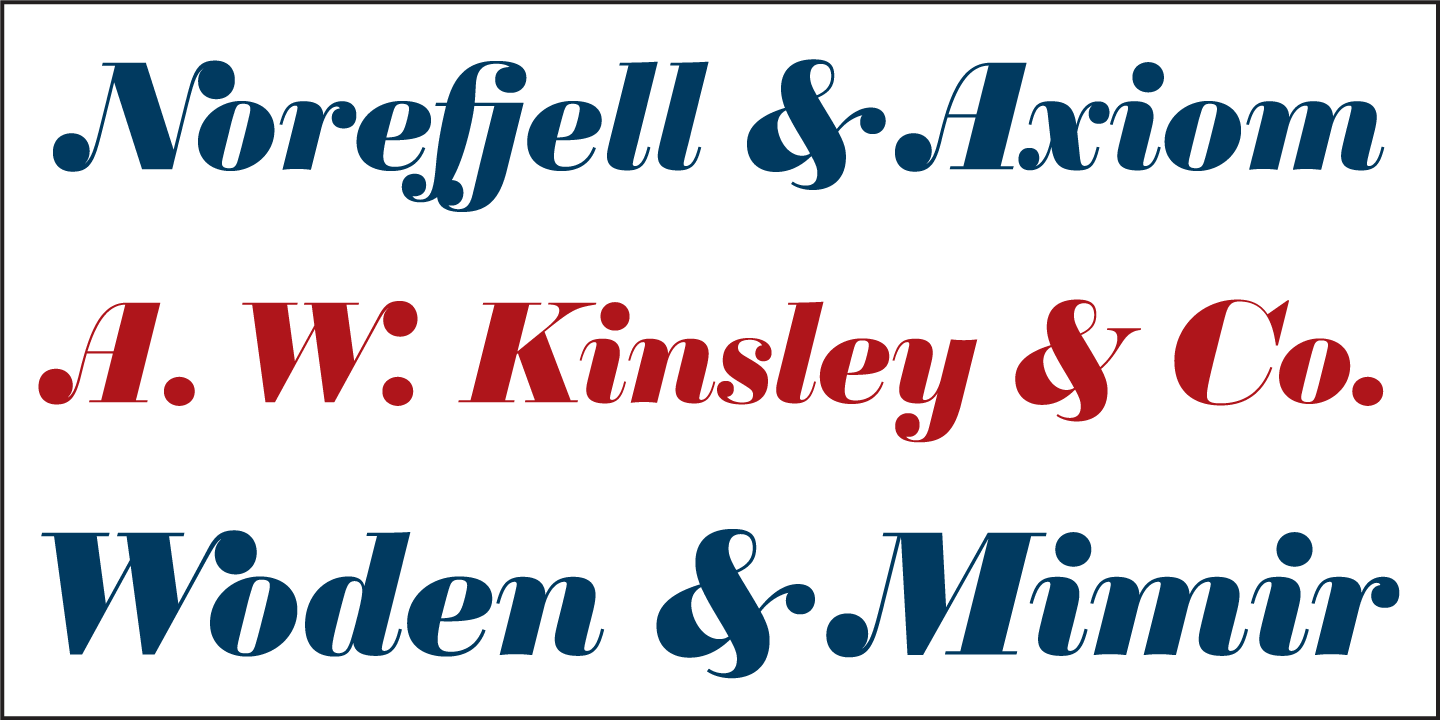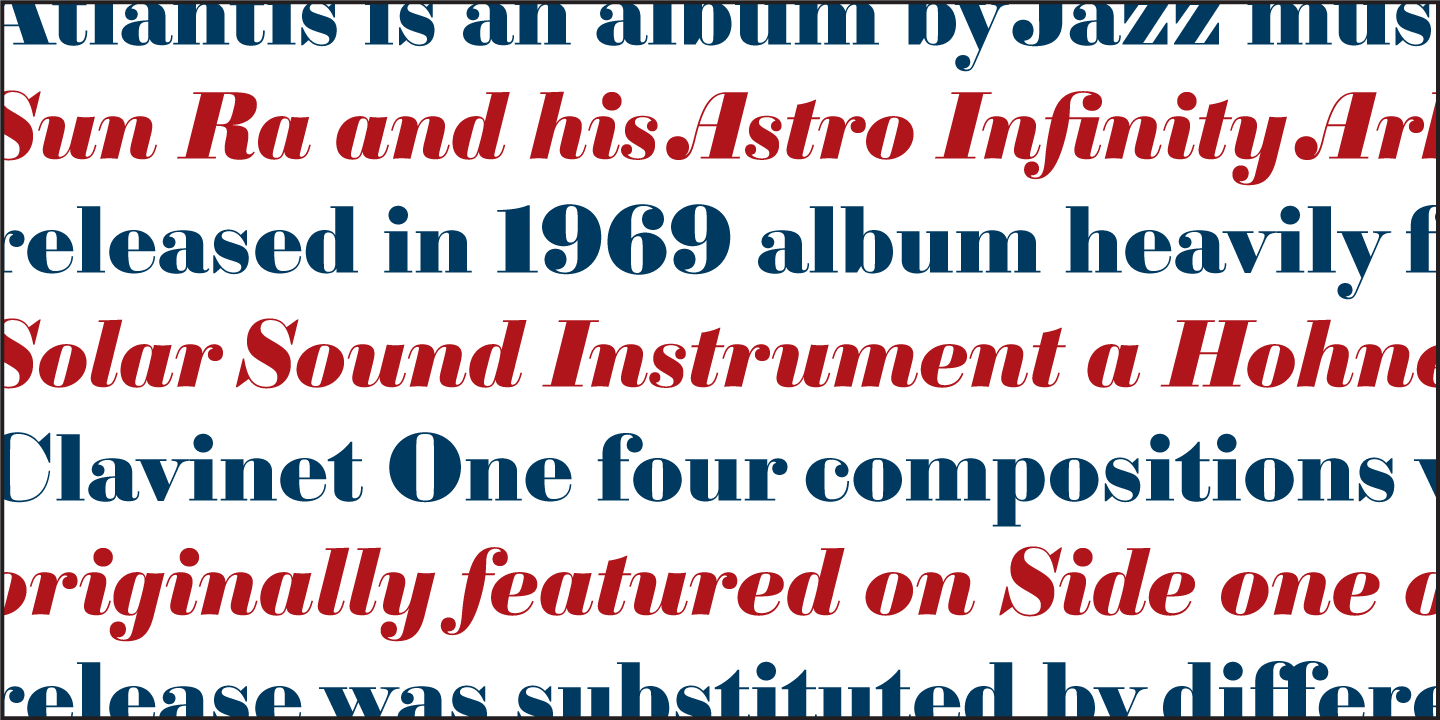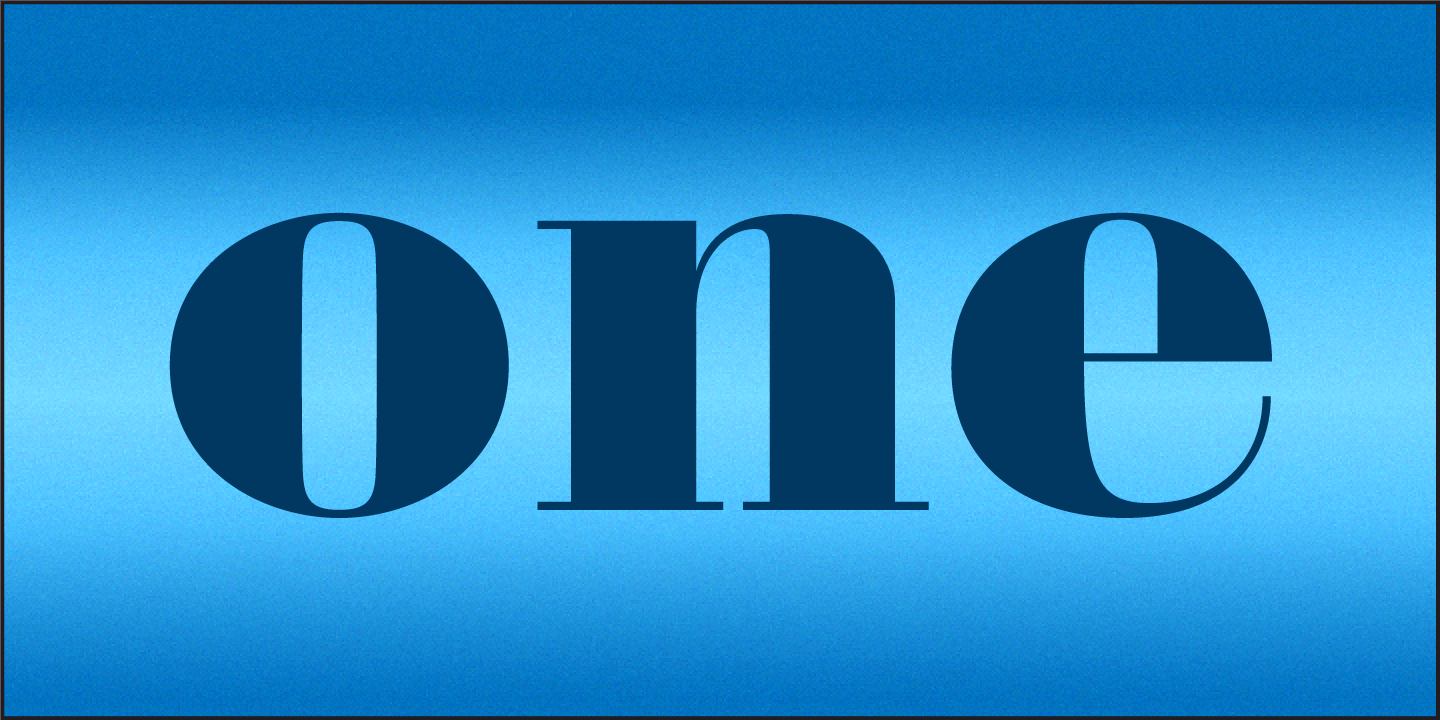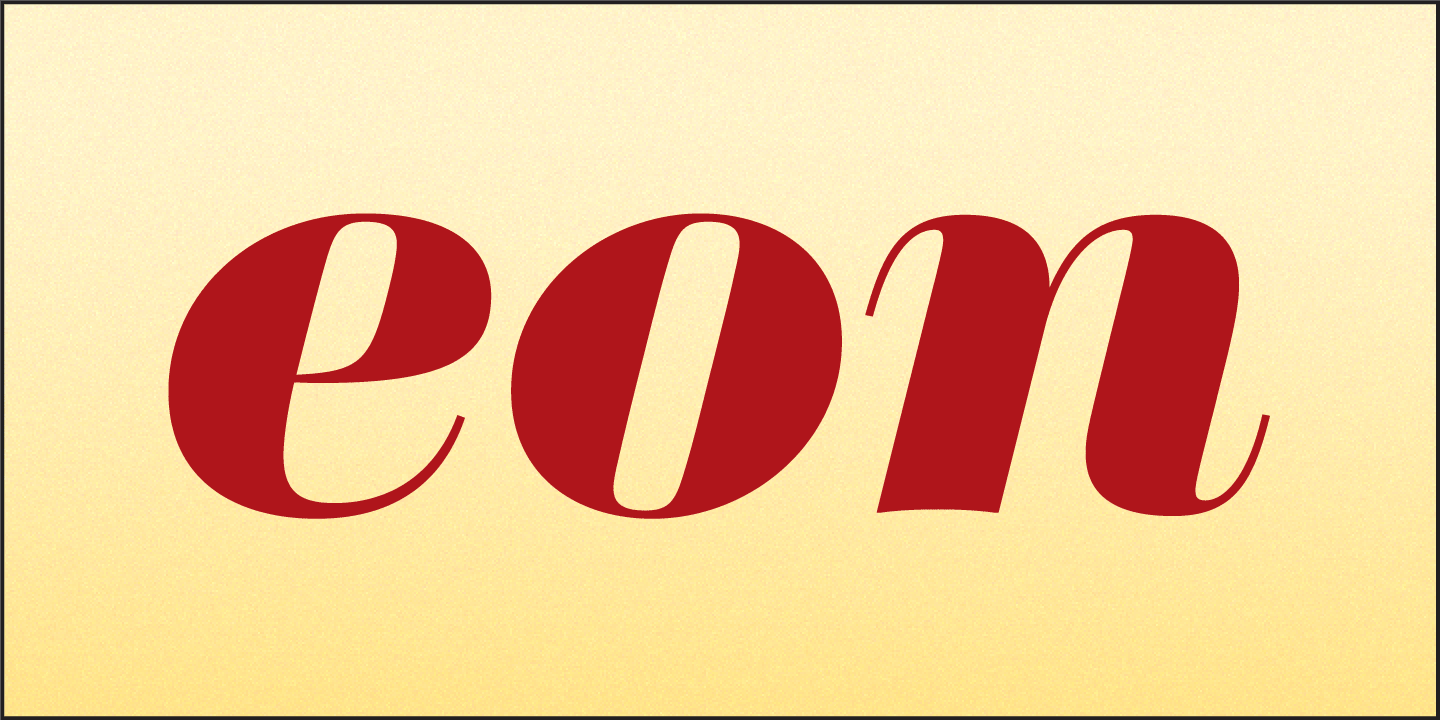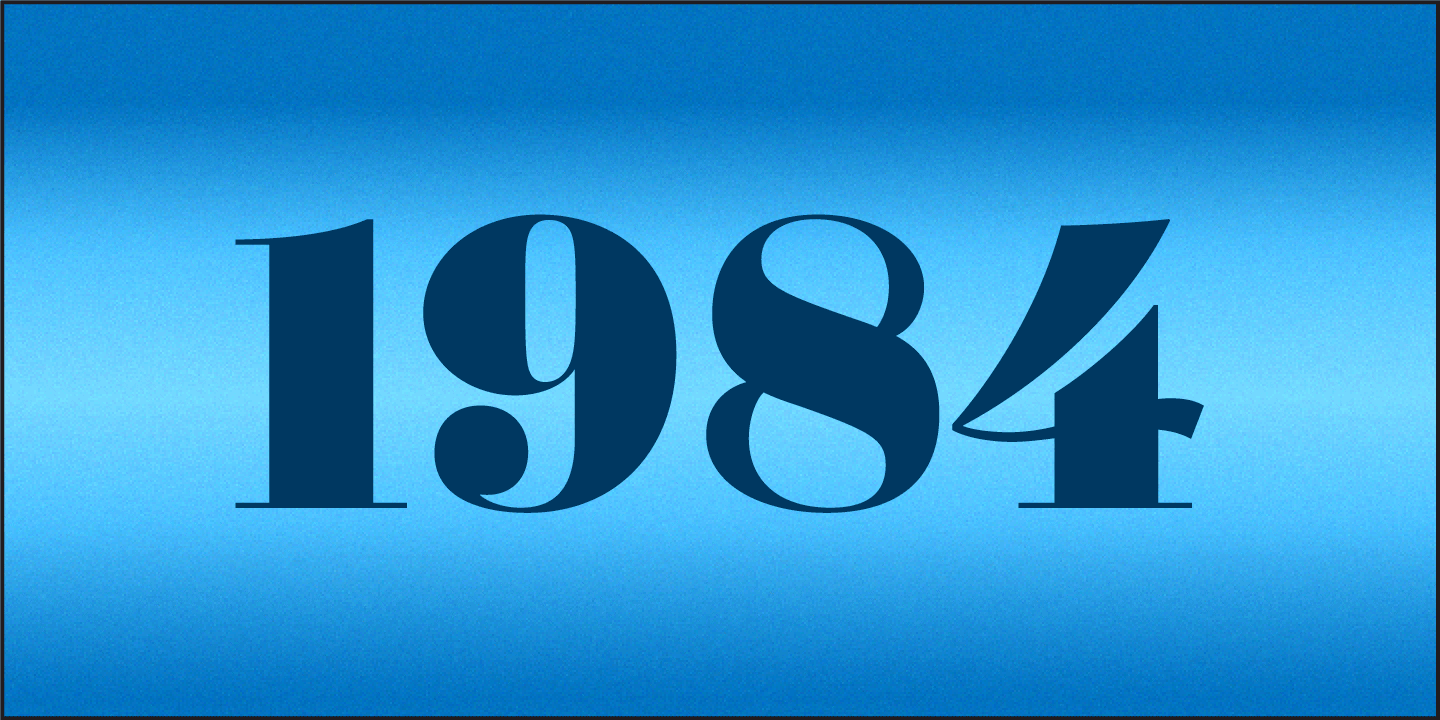
Sybarite is a fat face that works at any size. Capitals with sweeping curves and sharp unbracketed serifs command attention while charming minuscules expose the amiable side of its demeanor. Sybarite is James Puckett\’s revival of the fat face type that…